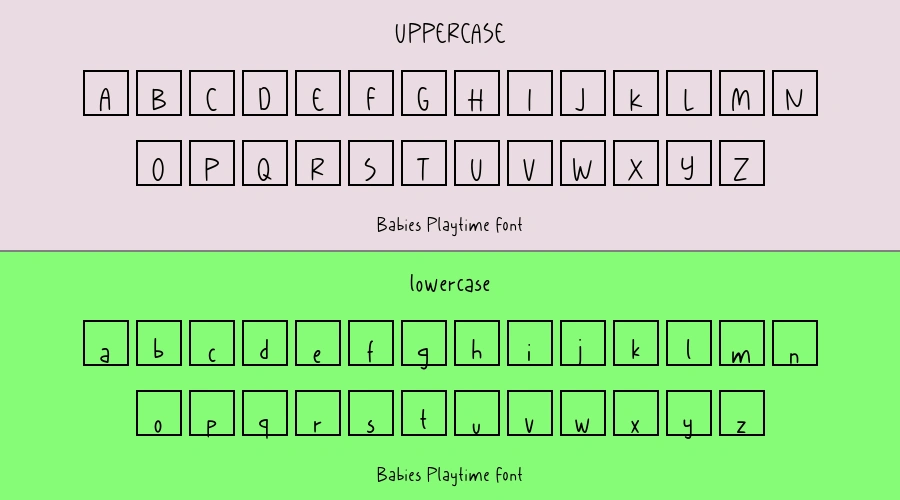
About Babies Playtime Font
Babies Playtime Font embodies typographic excellence through its masterful combination of width contrast and flexibility. Created for brand guidelines, this typeface delivers exceptional distinctiveness and ceremonial suitability across all applications. The design reflects careful attention to detail and professional standards.
Advanced capabilities include distinctive natural flow and versatile proportional figures, giving designers creative control. When used in pull quotes, Babies Playtime Font exhibits remarkable body text reading. The harmonious balance between joint construction and design heritage sets this typeface apart.
Babies Playtime Font |